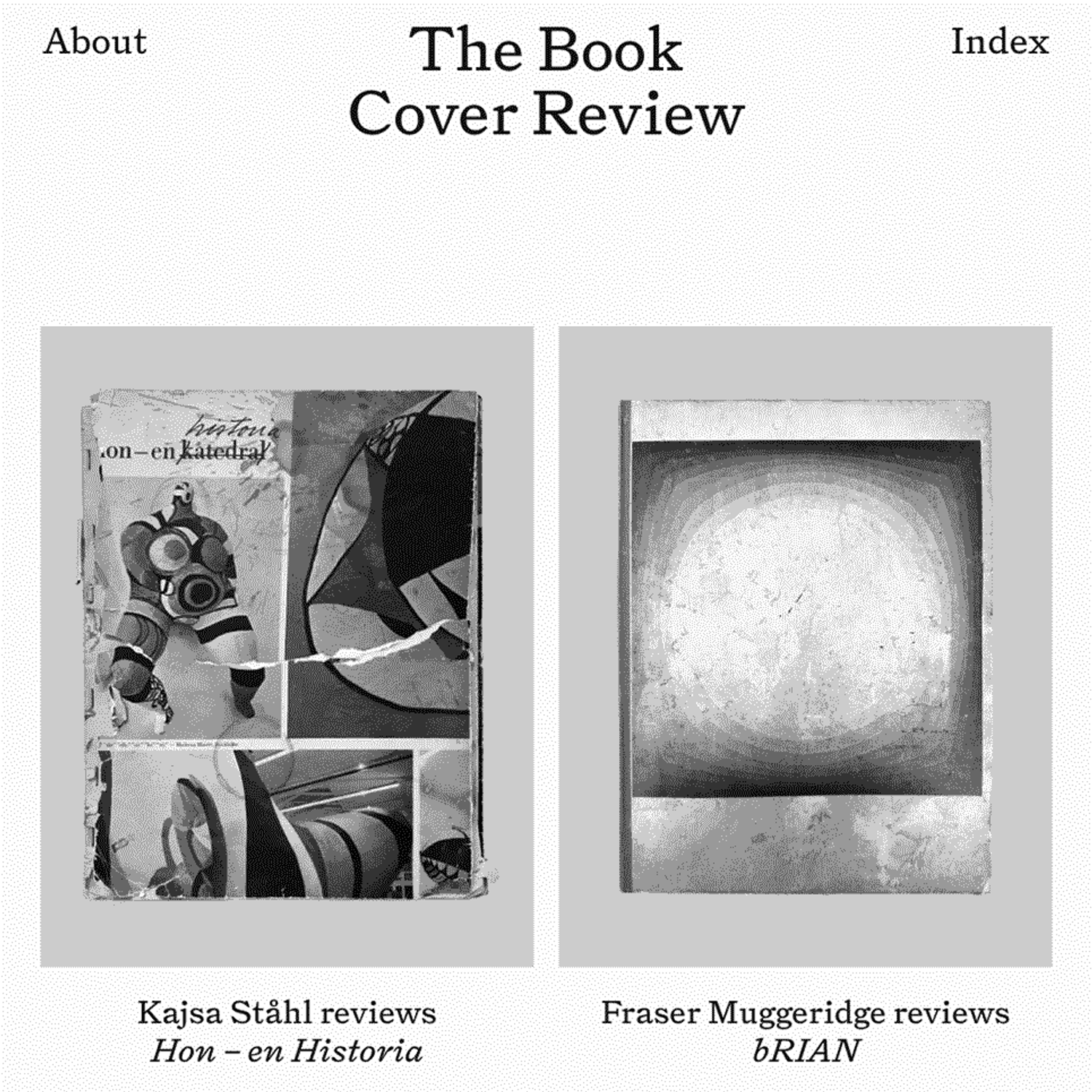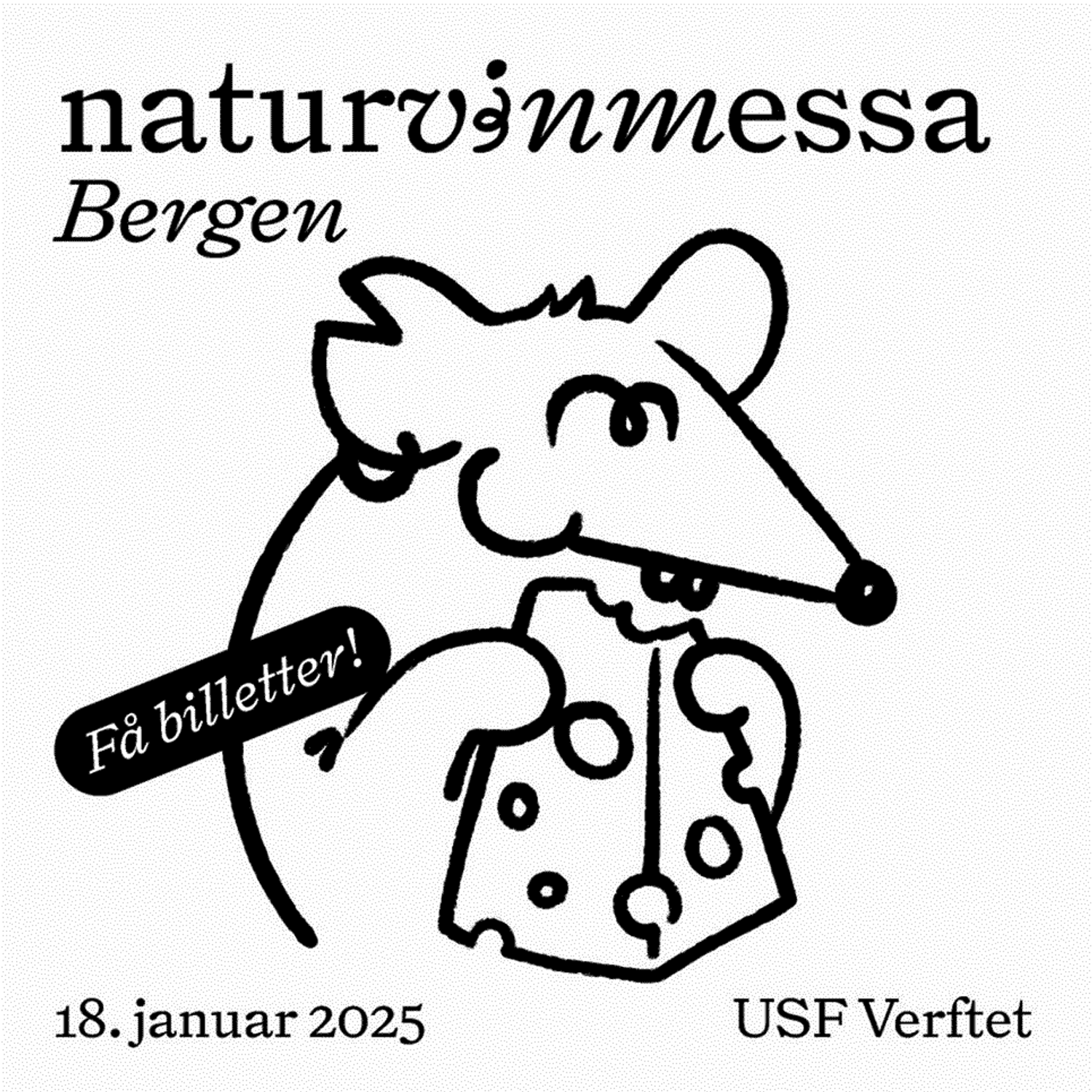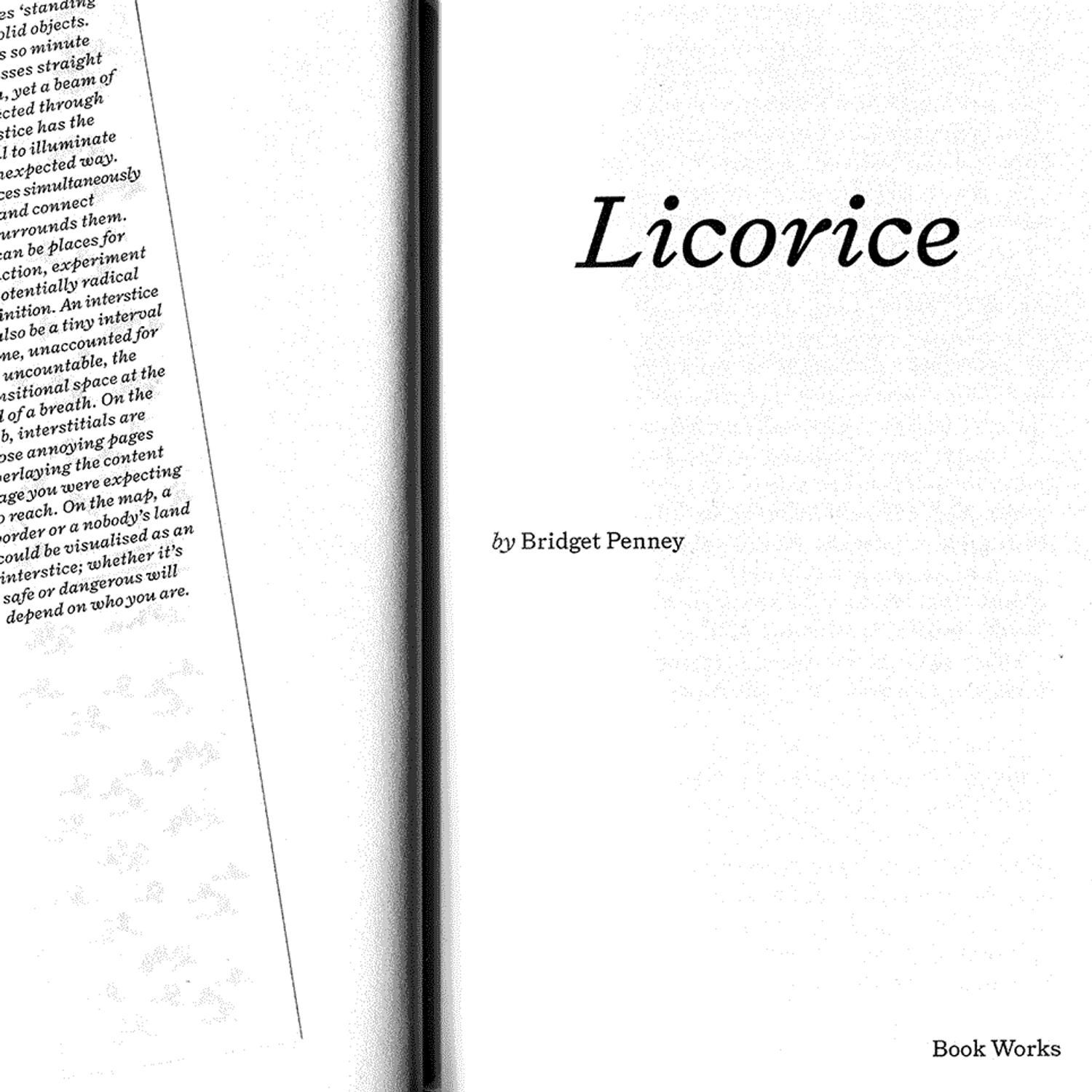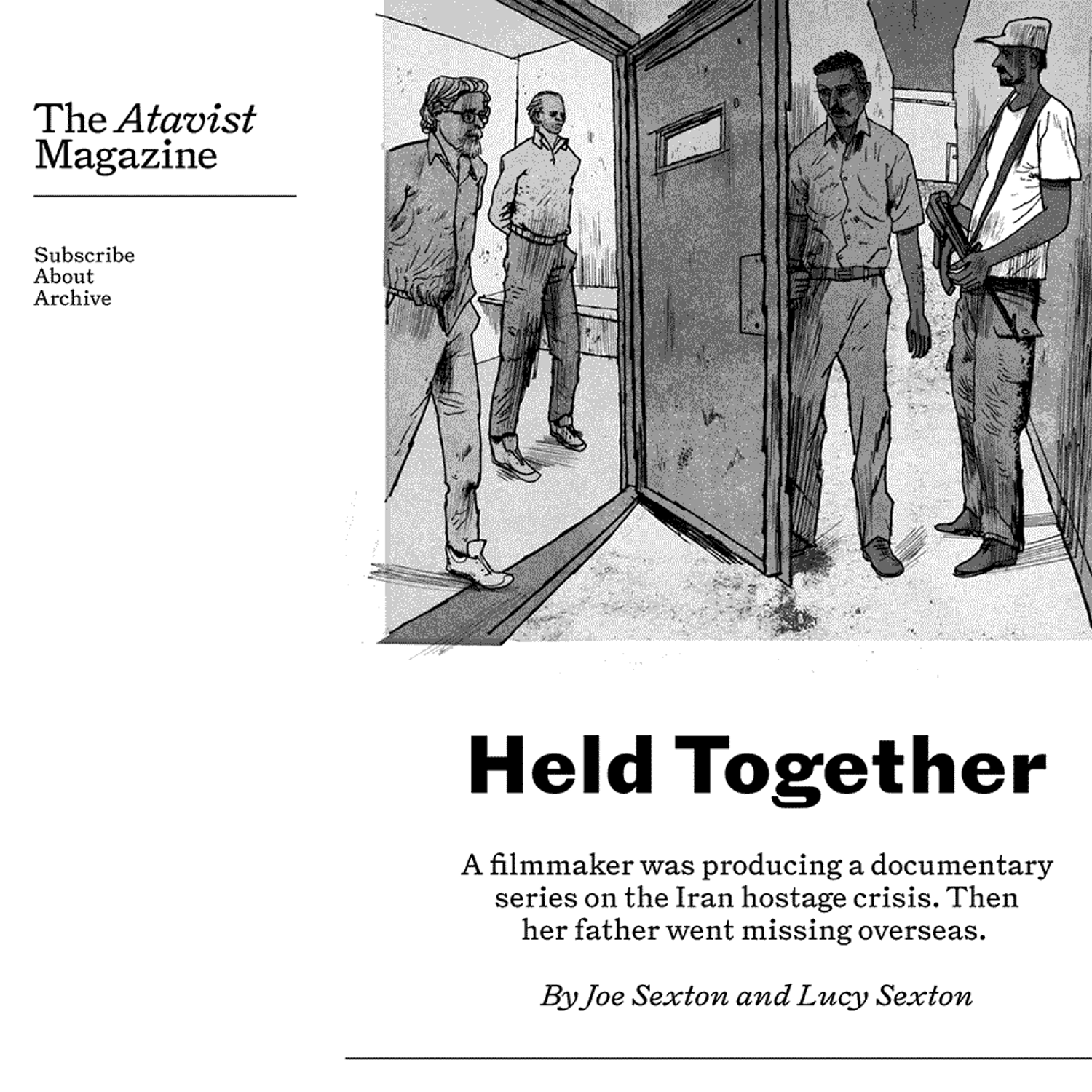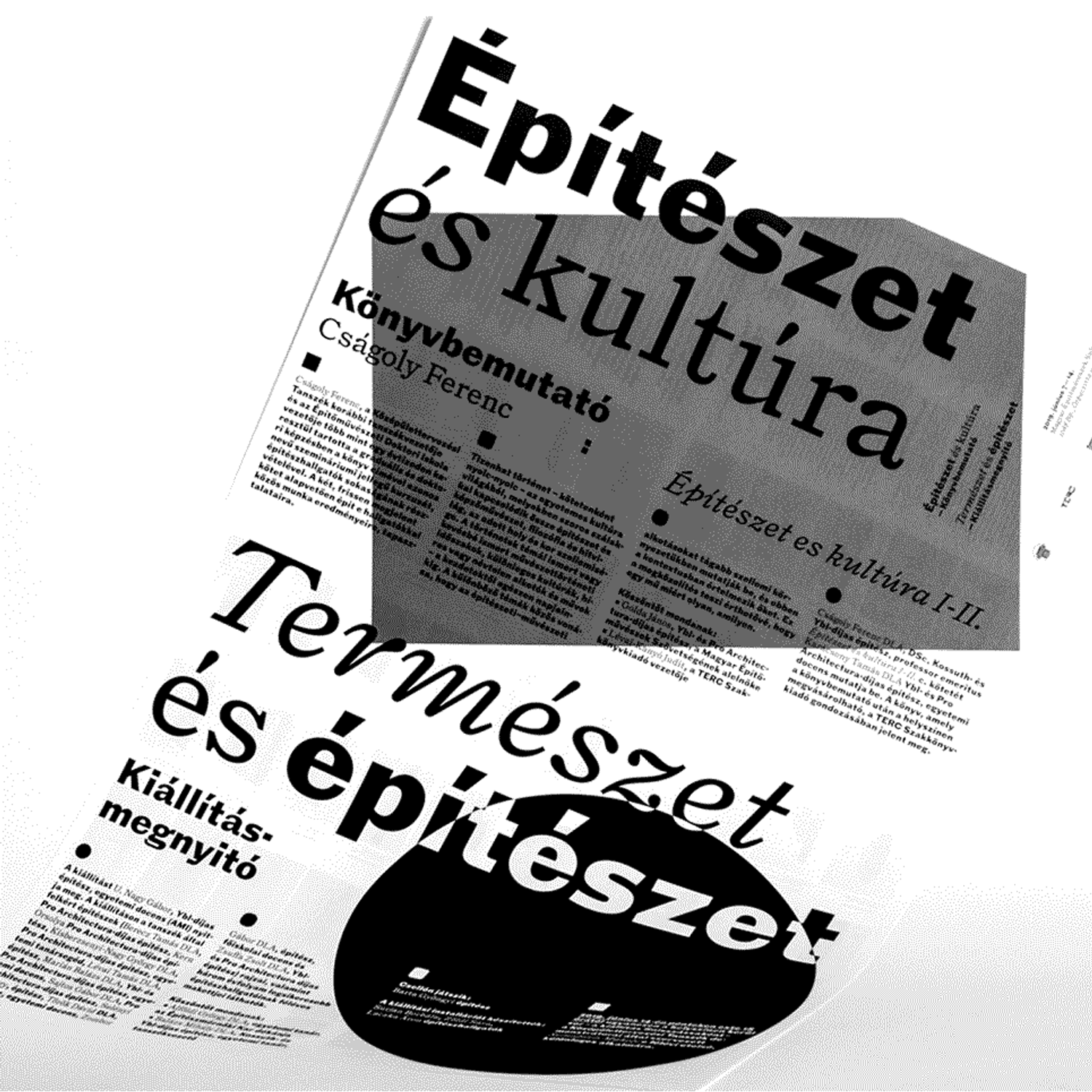
Triptych is comprised of three distinct styles — Roman, Italick [sic] and Grotesque — harking back on the sophisticated brutality emblematic of Victorian text typography.
Roman and Italick are irreverently free renditions of the sturdiest of all sturdy book faces ever produced — namely Old Style Antique ­No. 7 by Miller & Richard’s prime punchcutter Alexander Phemister first issued in 1858. The accompanying Grotesque is a mental extrapolation of unsorted Sans Surryph influences spanning the best part of the Nineteenth Century.
The seriffed styles were drawn based on a variety of type specimens encountered in both physical and digital form of more and less dubious origin.
In the process, it proved beneficial to avoid high fidelity imagery in favour of low resolution samples. The lack of visual clues combined with a no-touch technique invites for individual interpretation of these letter shapes from the elusive past. This approach removes the result from being a mere revival and rather emphasizes the moment of abstraction required in drawing digital type
The Bold weight takes this adaptive method even further; nonchalantly appropriating various historical sources, it is a subconscious amalgamation of a manifold of quaint European grotesques and American gothics.
Despite its name, Triptych is of secular, utilitarian nature. The triplet is designed to take on clearly defined hierarchical functions within a typographic system. Its unsentimental, at times mechanical drawing makes for a stubbornly robust and economic design. Bare any bourgeois flamboyance it is suited for confident and hard-working typography. Where other typefaces are promoted as workhorses, this one is a mule.